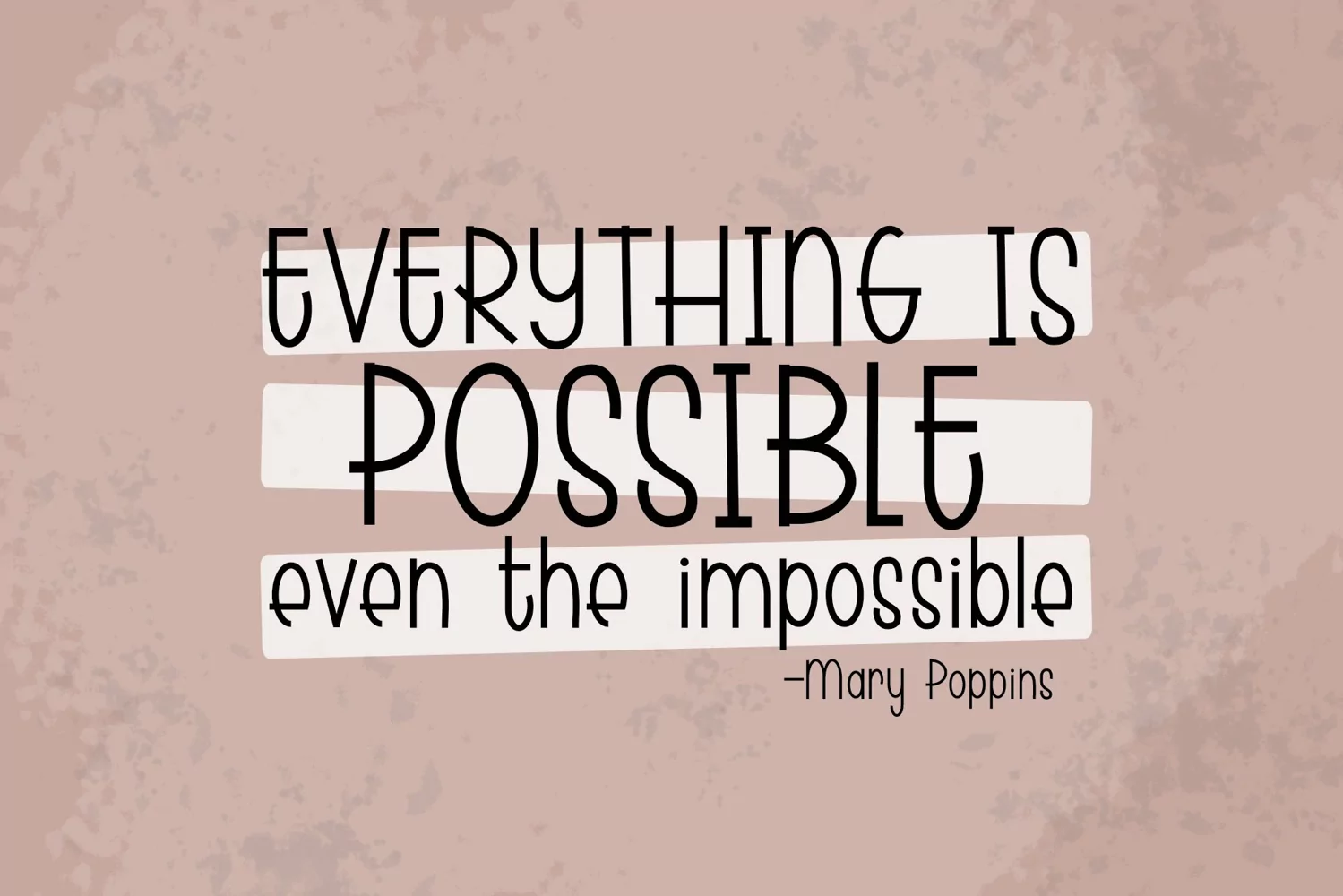
CINEMA font - regular outline - Crafter Font
A fun and unique hand designed font that can be used for any occasion! CINEMA includes a regular version and an outlined version!
This font can be used for all kinds of things such as Cricut projects, digital designs, social media, invitations, shirts, mugs, wood signs, and so much more!